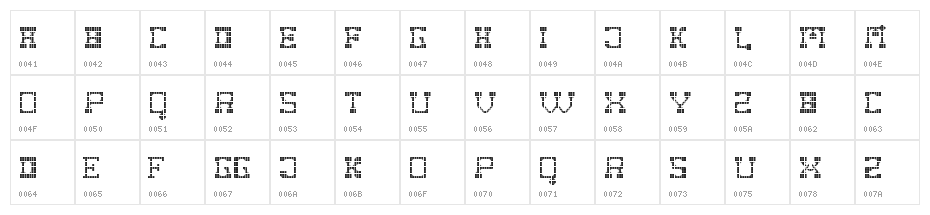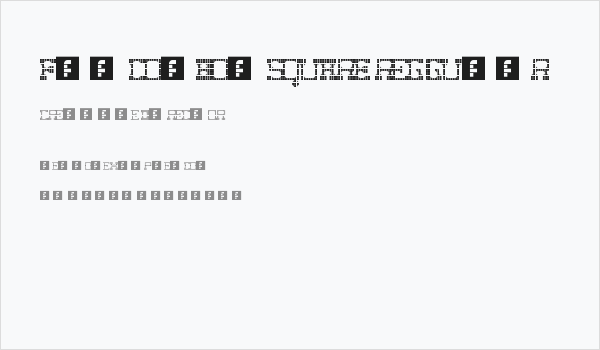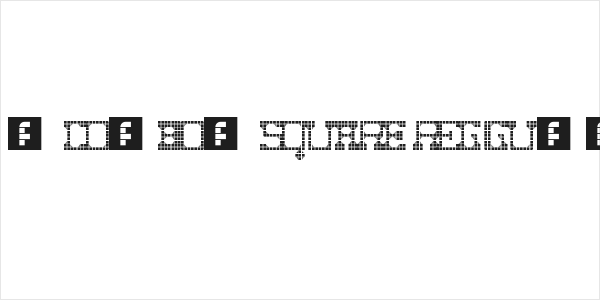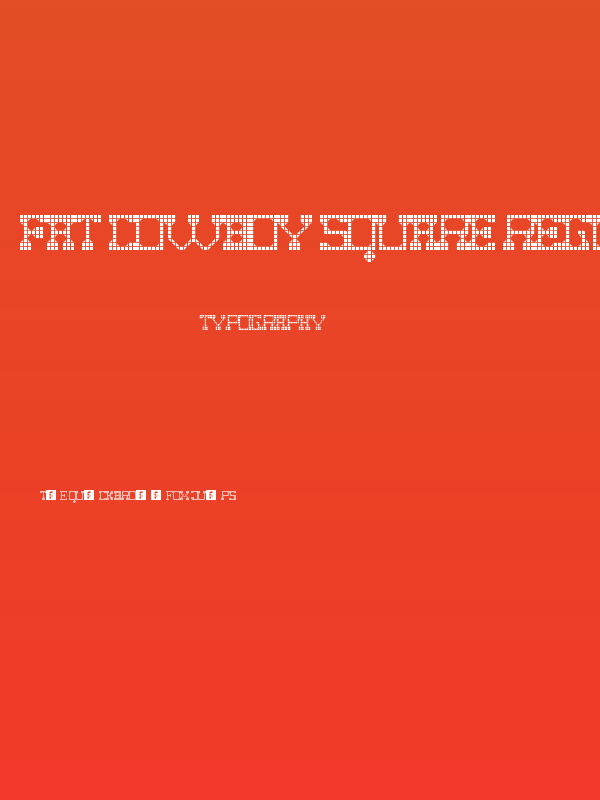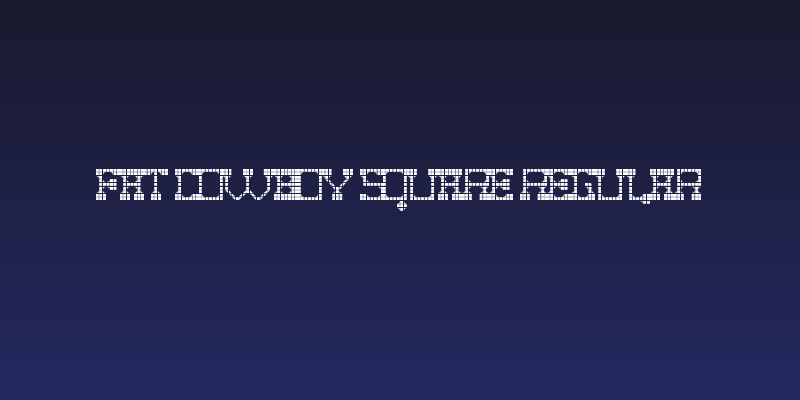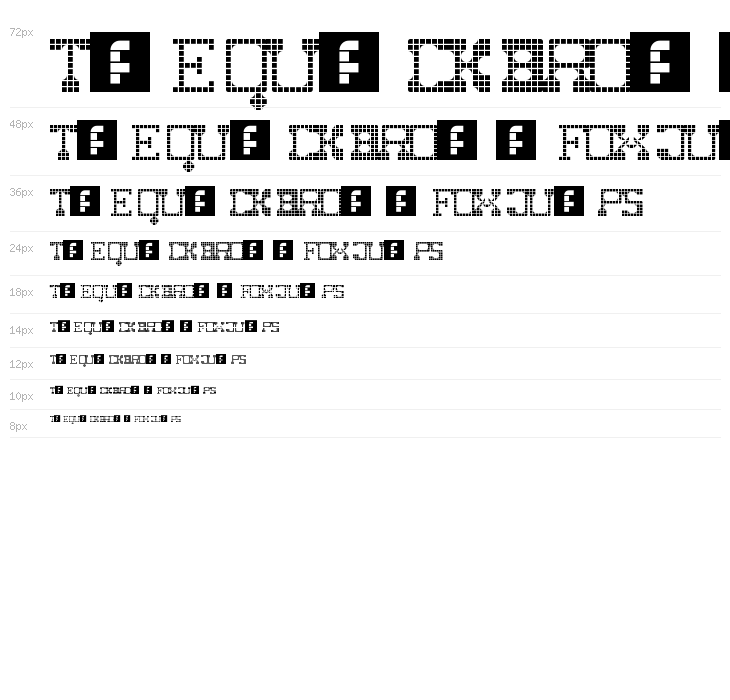
Fat Cowboy SQUARE Regular Font
Fat Cowboy SQUARE Regular Description
This font features a bold, square-based design with a distinct pixelated or grid-like appearance. Each character is constructed from a series of small squares, creating a digital, retro aesthetic reminiscent of early computer graphics or arcade games. The uppercase letters are robust and blocky, while the lowercase letters maintain the same grid structure, offering a cohesive look. Numbers and special characters follow the same design principles, ensuring consistency across all glyphs. The font's unique style makes it stand out, ideal for projects that require a vintage or tech-inspired theme.
| Overall Style | Retro, Digital |
| Use Case | Logos, Posters, Digital Art |
| Proposed Projects | Ideal for video game design, retro-themed posters, digital art projects, and tech-related branding. |